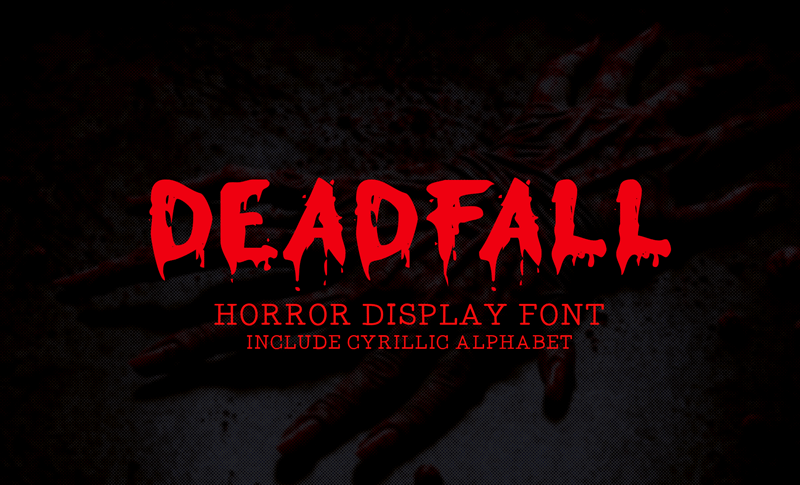
Introducing Deadfall, the ultimate horror display font! This Monospace typeface combines the essence of fear with a multilingual twist, boasting a captivating dripped and splash style. With the inclusion of the Cyrillic alphabet, it caters to a global audience. Offering both regular and italic variations, Deadfall is perfect for posters, marketing materials, chilling movie titles, Death metal logotypes, Halloween crafts, and an array of spine-tingling projects. Unleash the terror with Deadfall! ______________________________________________________ By installing or using this font, you are agree to the Product Usage Agreement: - This font is already FULL VERSION and ONLY for PERSONAL USE. NO COMMERCIAL USE ALLOWED! - Here is the link to purchase COMMERCIAL LICENSE: https://crmrkt.com/pMVXbl - If you need a CUSTOM LICENSE or CORPORATE LICENSE please contact us at: mofr24.artwork@gmail.com - Any donation are very appreciated. Our Paypal account for donation : https://paypal.me/avieora Please visit our store for more amazing fonts : https://www.creativefabrica.com/ref/401336/ https://fontbundles.net/mofr24-work More... |